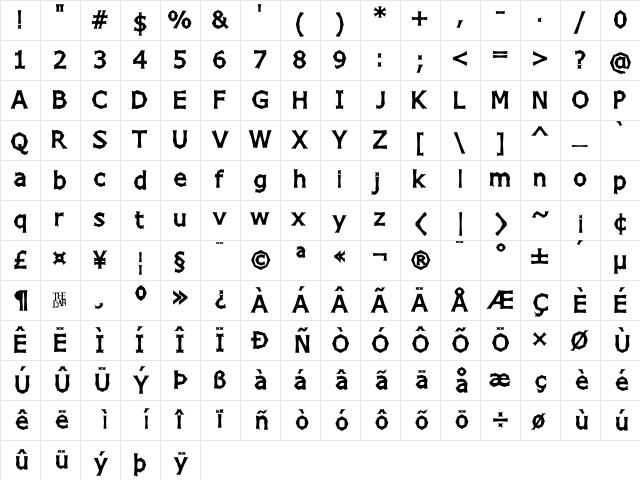
Chizz Wide High Regular
| Designer | Graham Meade & Apostrophe |
Design Context for Chizz Wide High Typeface
Chizz Wide High takes a measured approach to typography — its balanced proportions and neutral character make it a reliable workhorse for both digital and print work.